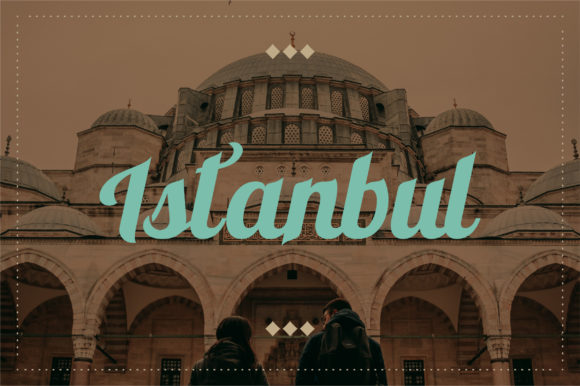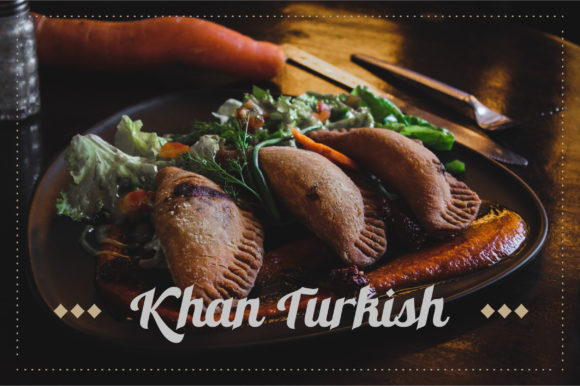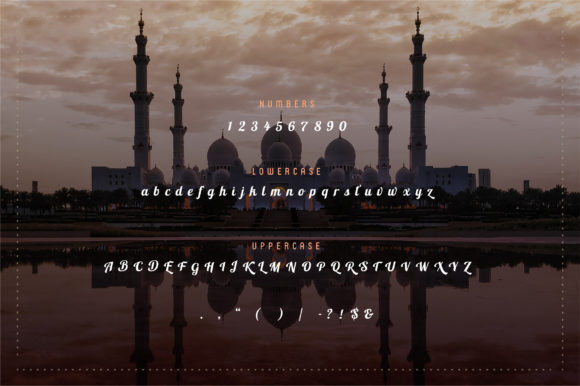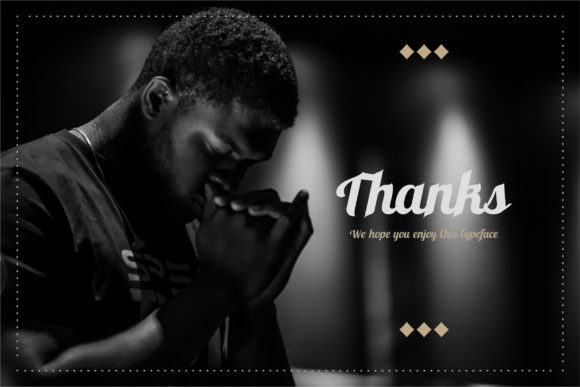
Introduction to Ramadona Font
Have you ever found yourself staring at a blank canvas, waiting for the perfect font to bring your creative project to life? That’s exactly what happened to me when I stumbled upon the elegant Ramadona Font. Its modern script design captivated me, and I couldn’t help but wonder how it would elevate my next design.
As a designer, I can attest that finding the right font can make all the difference in a project’s success. That’s why I’m excited to share with you the beauty of the Ramadona Font. With its high-quality design and transparent background, this font is a valuable addition to any designer’s toolkit. Whether you’re working on a personal project or a client’s design, the Ramadona Font is sure to impress.
Key Features of Ramadona Font
- High-quality design for creative projects, suitable for various design resources
- Unique, elegant, and modern design style, perfect for adding a touch of sophistication to any creative project
Honest Review: Ramadona Font
I recently had the chance to work with the Ramadona Font, and I must say, it’s been a game-changer for my creative project. As a designer, I’m always on the lookout for high-quality fonts that can elevate my designs and help me stand out.
One of the things I love about the Ramadona Font is its unique style. It’s modern, yet elegant, and it works well for a variety of design applications. ✨ I’ve used it for logos, business cards, and even social media graphics, and it always looks great. The font is also highly customizable, which is a major plus for me.
Overall, I’m really impressed with the Ramadona Font. It’s a great addition to any designer’s toolkit, and I highly recommend it for any creative project.
- Unique and modern design style
The Ramadona Font is perfect for a variety of creative projects, including graphic design, branding, and digital marketing materials. Its high quality and transparent background make it an ideal choice for designers looking to create stunning visual effects.
To get the most out of the Ramadona Font, experiment with different font sizes, colors, and arrangements. Use the font in combination with other design elements to create visually striking effects.